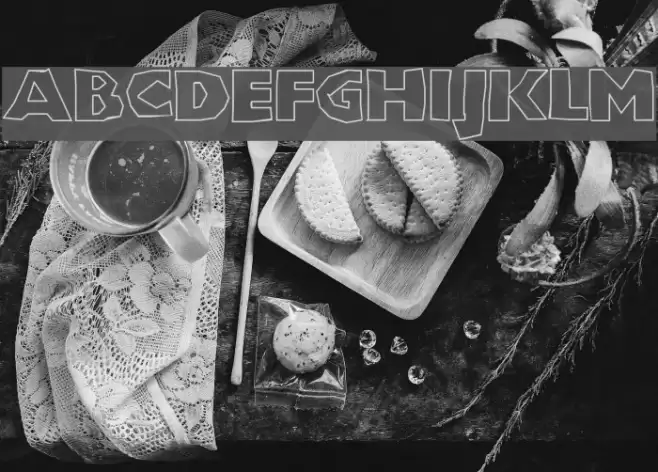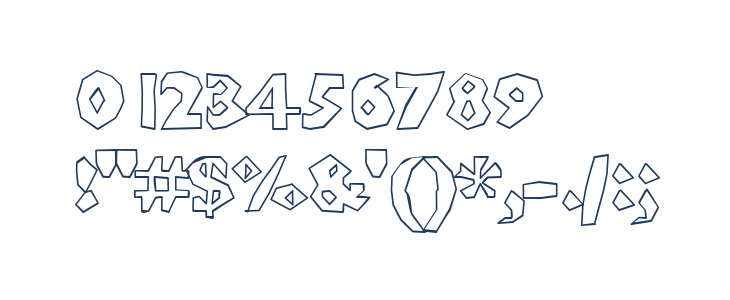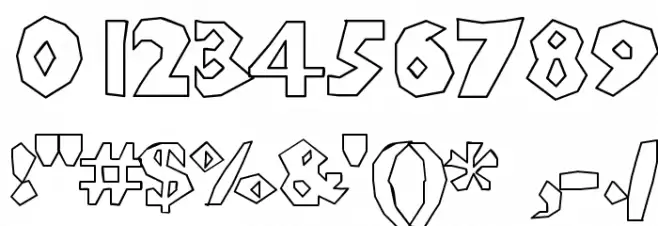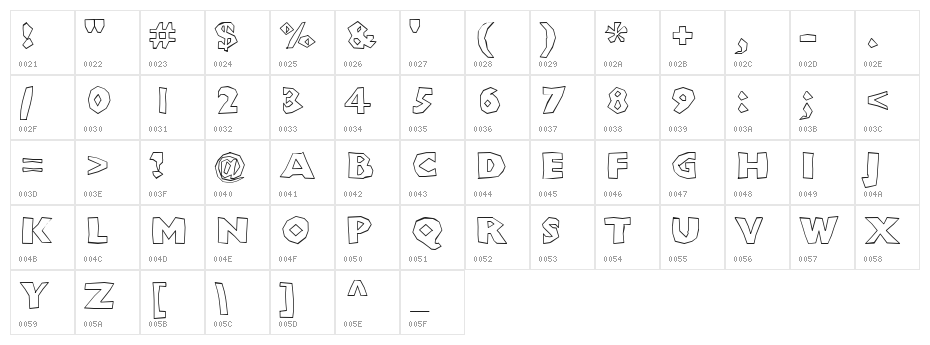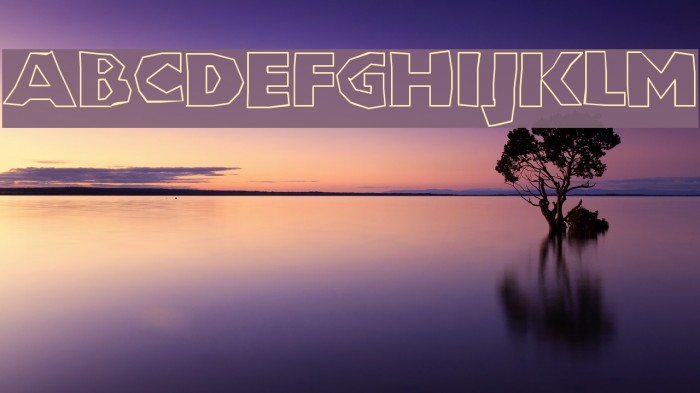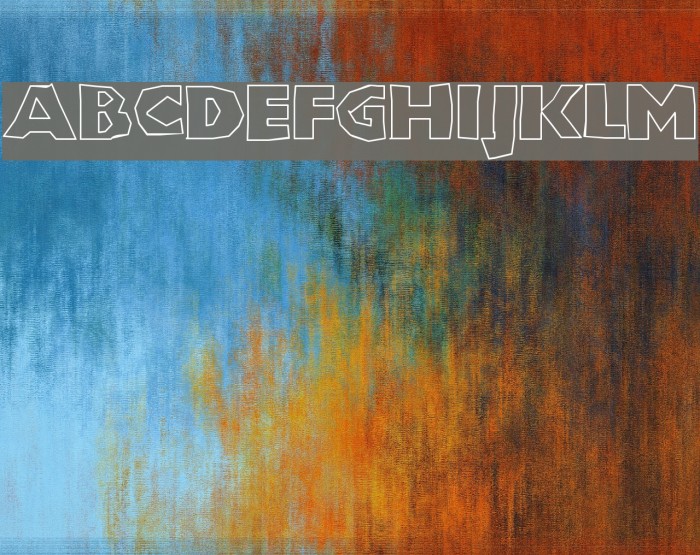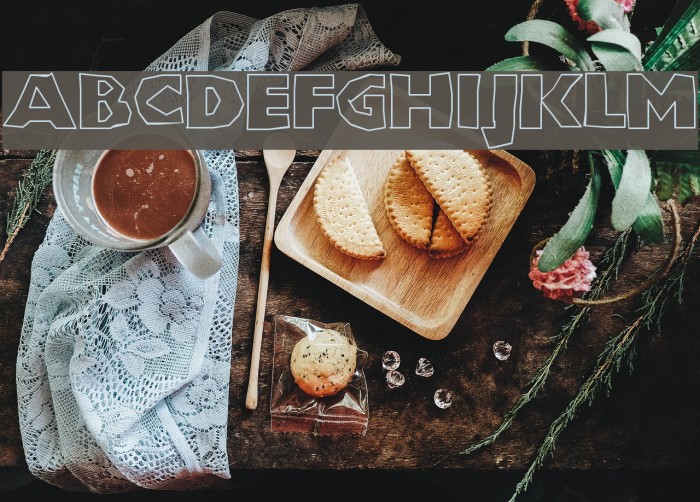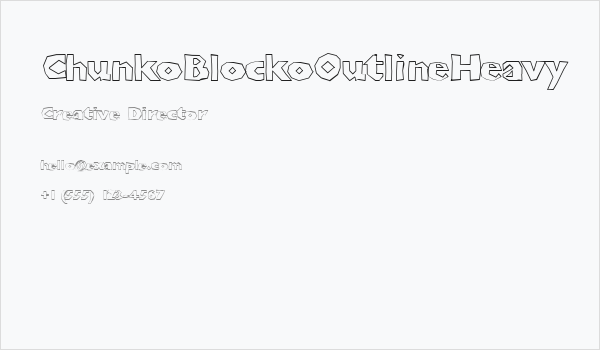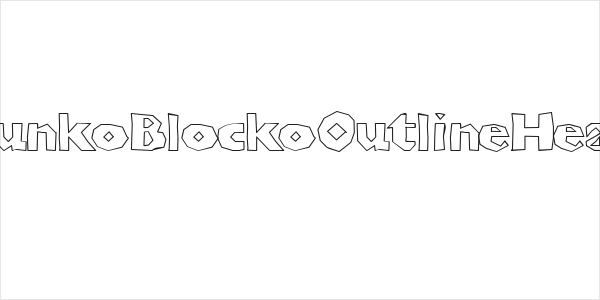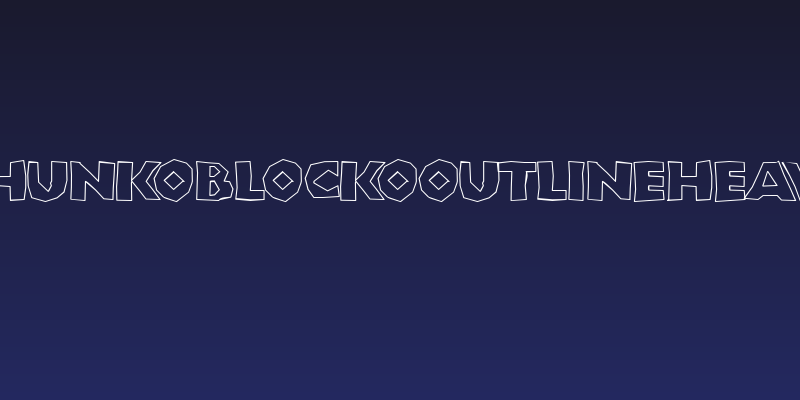
ChunkoBlockoOutlineHeavy Font
ChunkoBlockoOutlineHeavy Description
This font features a bold, geometric outline style with a playful and chunky appearance. The characters are constructed with thick, angular lines that create a sense of depth and dimension. The uppercase and lowercase letters maintain a consistent blocky form, while the numbers and special characters follow the same design principles, ensuring uniformity across all glyphs. The font's outline nature gives it a unique, eye-catching look that stands out in any design. Its heavy weight and distinct style make it ideal for projects that require a strong visual impact.
A bold, geometric outline font with a chunky, playful style from Uncategorized fonts.
- Proposed Projects: Ideal for posters, headlines, logos, and any design needing a bold statement.